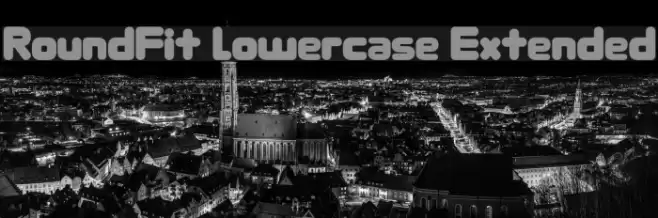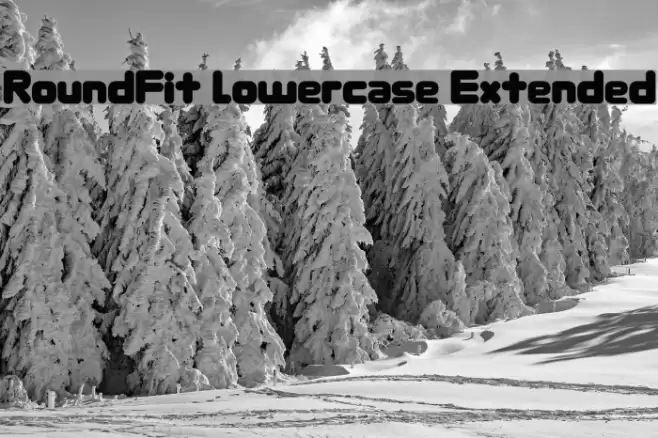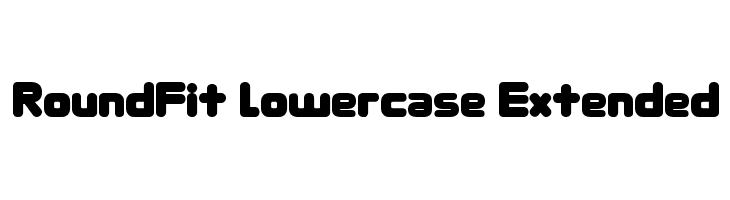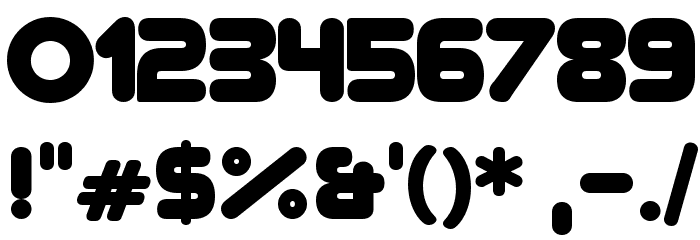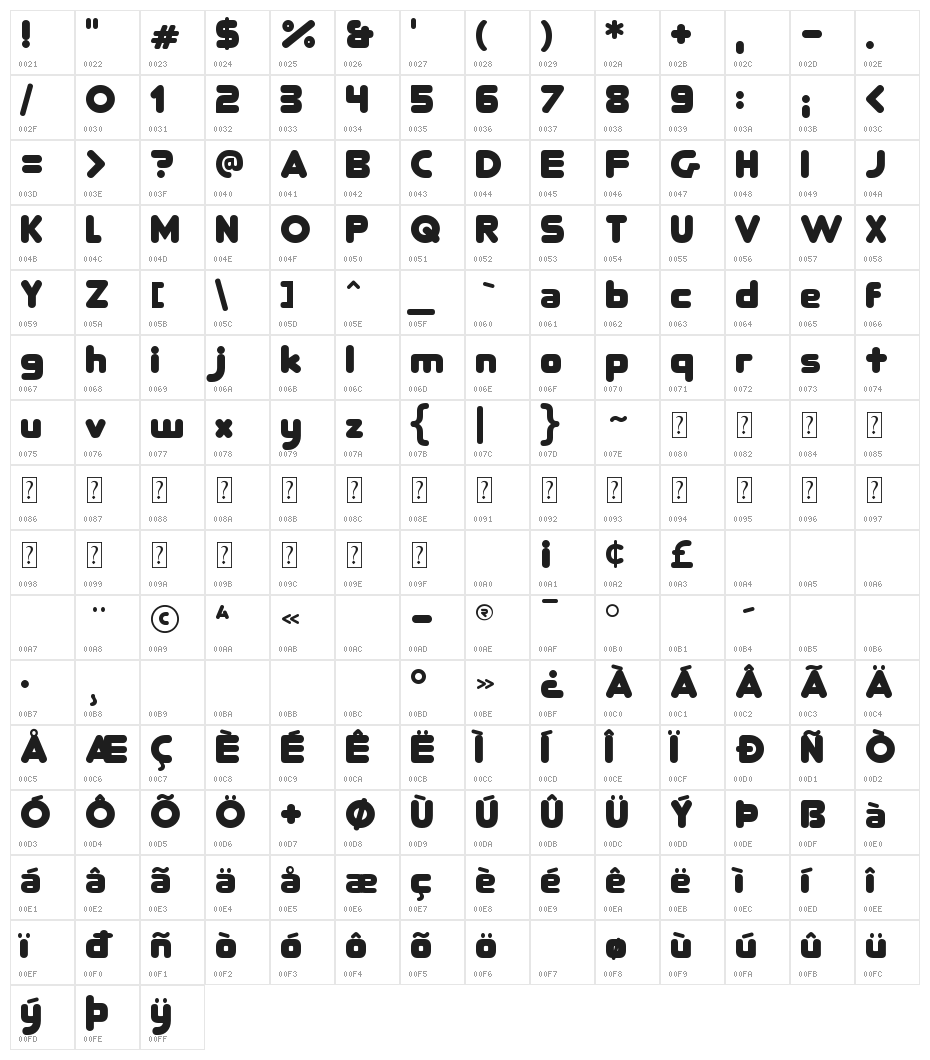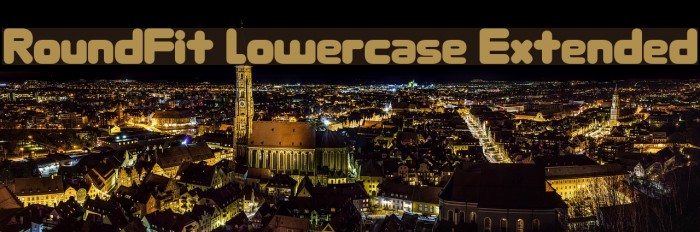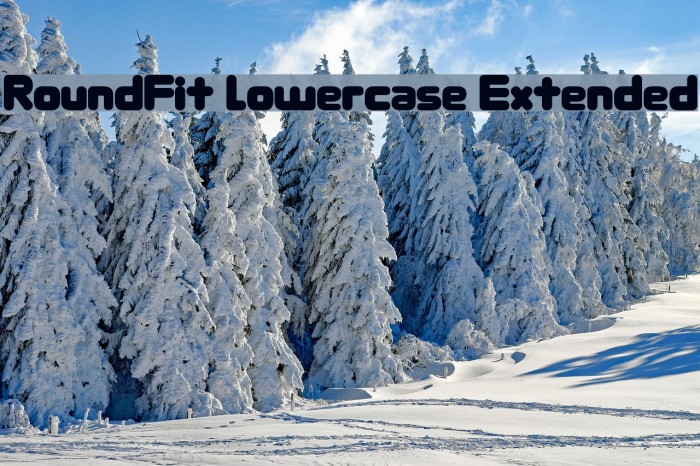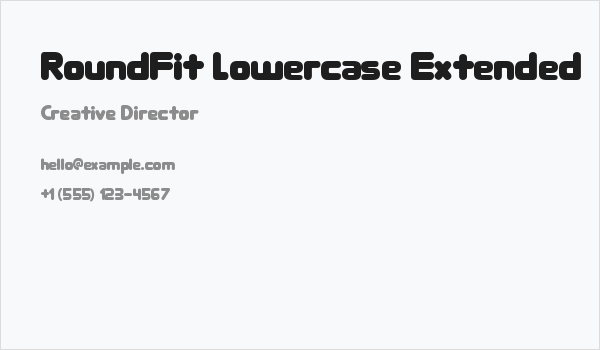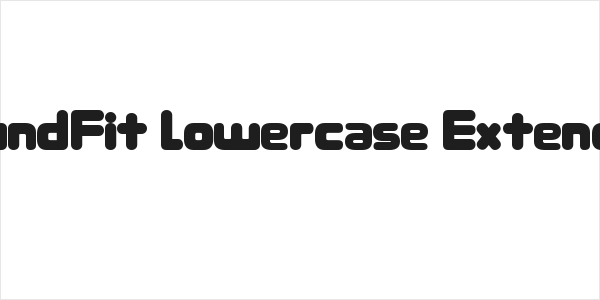
RoundFit Lowercase Extended Font
RoundFit Lowercase Extended Description
This font features a bold and rounded style with a modern and playful appearance. The characters are uniformly thick, giving them a strong presence on the page. The rounded edges contribute to a friendly and approachable look, making it suitable for a variety of design projects. The font maintains consistent weight throughout, ensuring readability and visual balance. Its geometric shapes and smooth curves make it ideal for contemporary designs that require a touch of whimsy. The numerals and special characters are designed to match the overall aesthetic, providing a cohesive look across all text elements.
A bold, rounded font with a modern and playful style from Uncategorized fonts.
- Proposed Projects: Ideal for branding, advertising, children's books, and playful design projects.